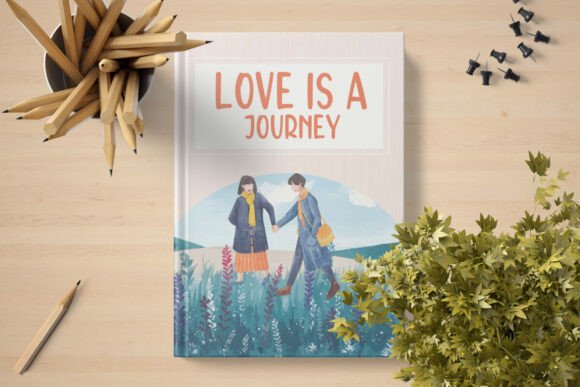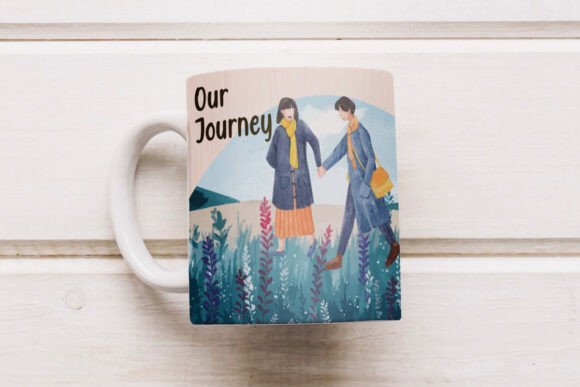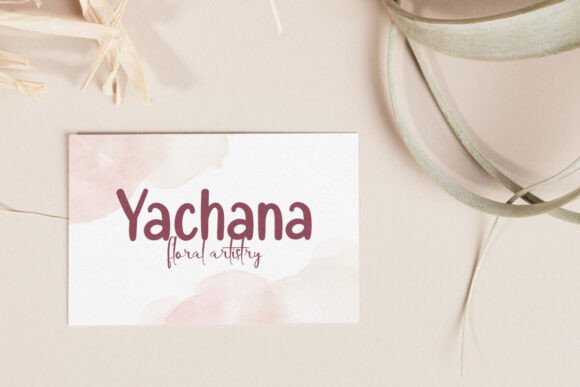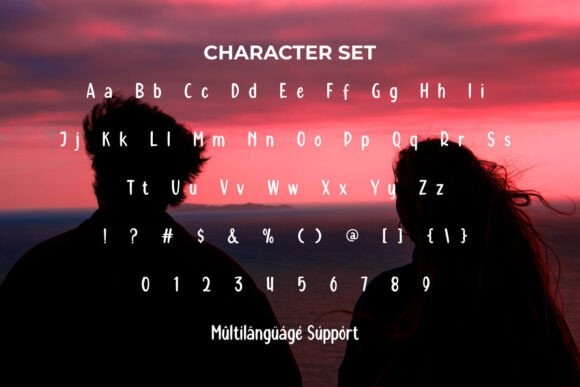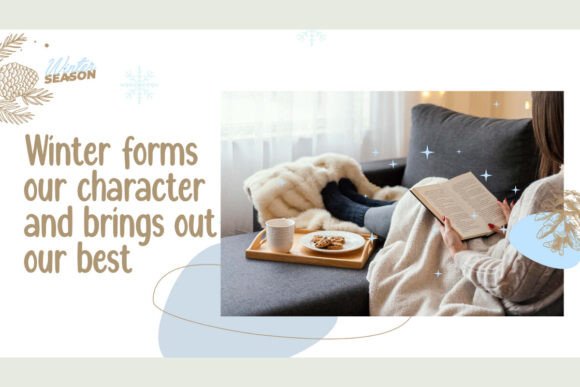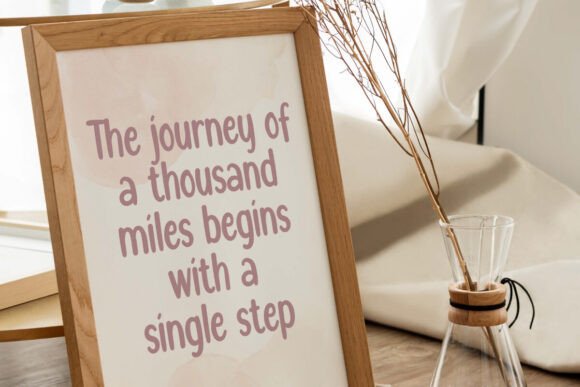
Introduction to Our Journey Font
As a designer, there’s nothing quite like the thrill of starting a new project, pouring over sketches and ideas, and watching your vision come to life. But sometimes, the perfect font can be the missing piece that takes your design from good to great. That’s where Our Journey Font comes in – a beautiful and friendly display font that brings a handcrafted touch to any of your creative projects.
With its gentle typography based on amazing handwriting, Our Journey Font is the perfect addition to any design resource. Whether you’re working on a brochure, business card, or website, this font is sure to brighten up your design and leave a lasting impression. And the best part? It’s available for free download, making it a valuable asset for designers of all levels.
Key Features of Our Journey Font
- High-quality design resource for creative projects, suitable for various mediums such as logos, posters, and digital displays.
- Unique, custom-designed font that adds a personal touch to any creative project, setting it apart from generic fonts.
Honest Review: Our Journey Font
I recently stumbled upon the Our Journey Font while searching for a new design resource to elevate my creative project. I was excited to give it a try, and here’s my honest review.
- The Our Journey Font has a beautiful, elegant design that’s perfect for projects that require a touch of sophistication.
- The Our Journey Font might be a bit too elegant for projects that require a more casual tone.
- The font family is relatively small, which might limit its use in certain creative projects.
Overall, I’m impressed with the Our Journey Font. It’s a great addition to any designer’s toolkit, and its high quality makes it a reliable choice for various projects. While it may have some limitations, I believe it’s worth checking out, especially considering the free download option.
Some common use cases for Our Journey Font include designing travel brochures, creating wedding invitations, and developing brand identity materials. To get the most out of Our Journey Font, use it in conjunction with a transparent background or a suitable background color. You can also experiment with different font sizes and styles to create a unique and creative look.